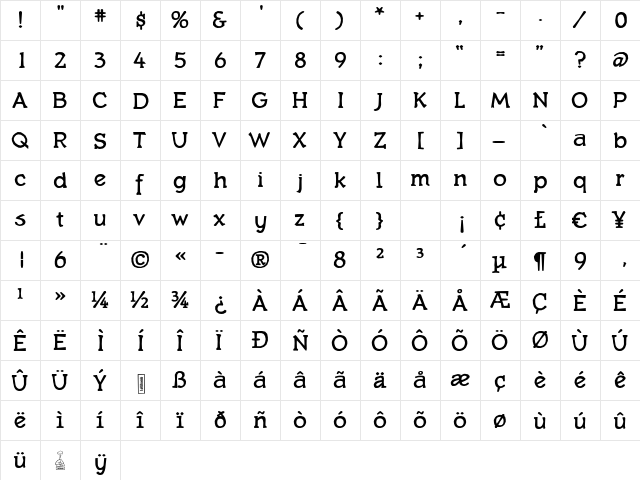
Quasbold Regular Font Preview
Quasbold Regular
Design Context for Quasbold Typeface
Quasbold is a composed and adaptable typeface that performs quietly and consistently across a wide range of design contexts. Its bold stroke weight gives it real presence on the page.